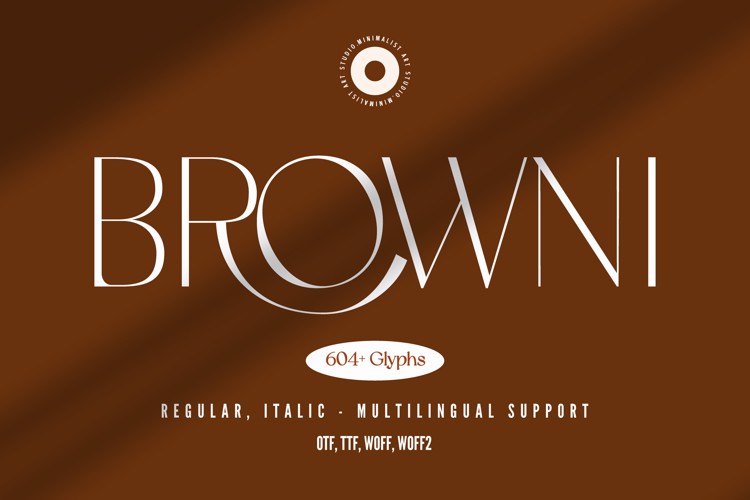
BROWNI Font
๐จ Font Name: Browni by Minimalist Art Studio
๐จ Font Description: Browni is a stylish display font with 600+ glyphs and multilingual supportโperfect for bold branding, editorial flair, and luxury packaging.
โ Complete Latin set + multilingual diacritics
โ Alternates, stylistic sets & ligatures
โ Numbers, small caps, and extended punctuation
โ Bonus italics and family styles